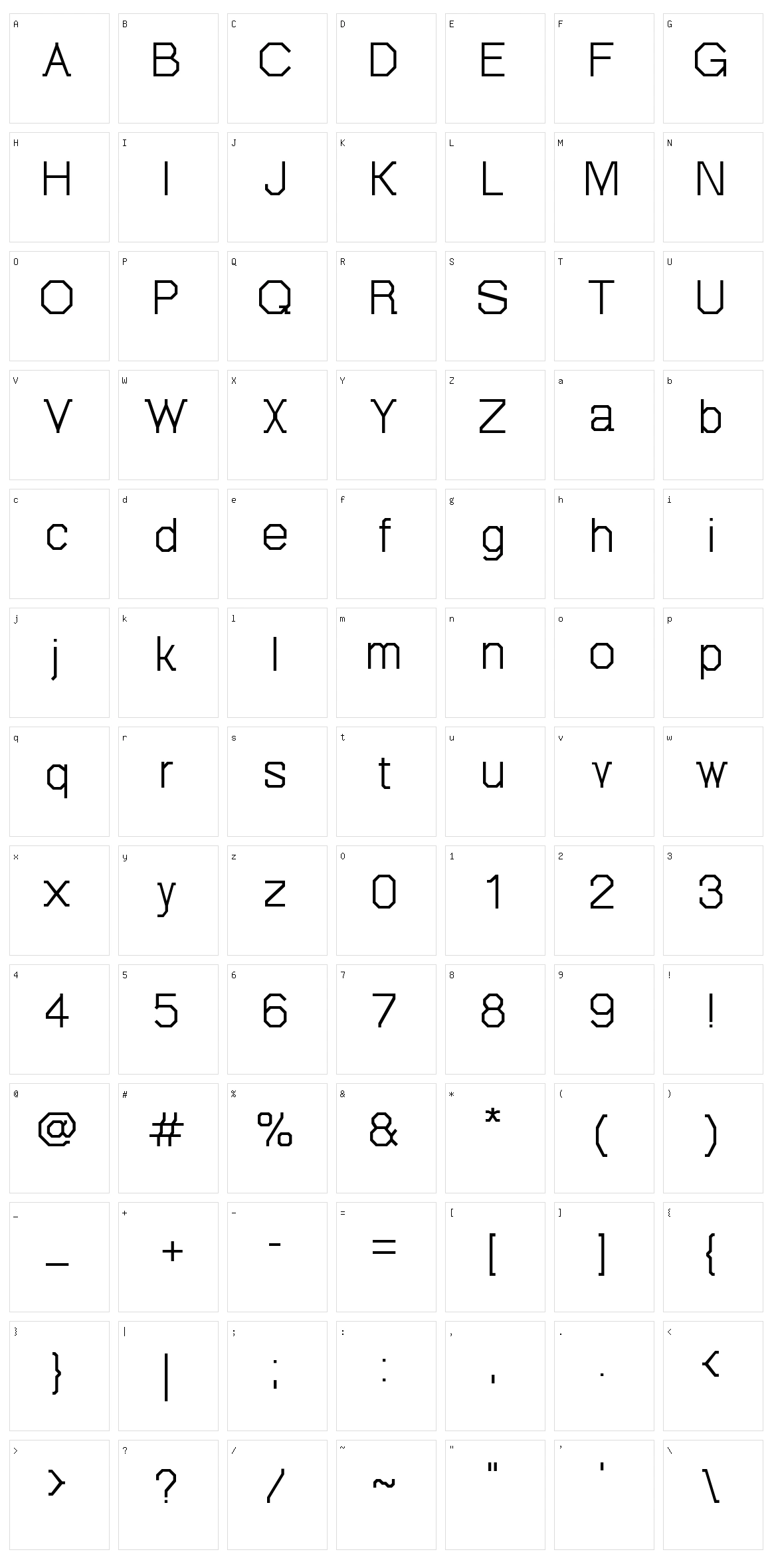
The free font Octovetica is carefully designed by N9 Multimedia Lab, showcasing a thoughtful balance of creativity and usability and falls under the Square font style. When you download the ZIP file, it contains only 19.7 KB of font files, making it lightweight and quick to download. Please review the license details below to understand permitted usage and distribution rights. If license information is not available, we recommend using this font for personal projects only or contacting the author directly for commercial usage permissions.